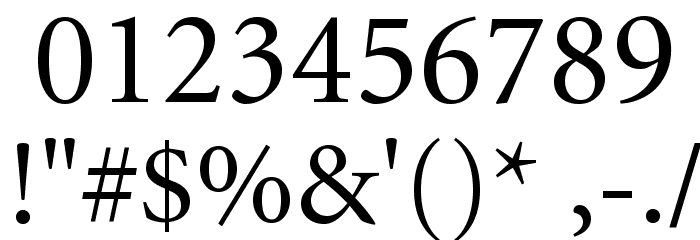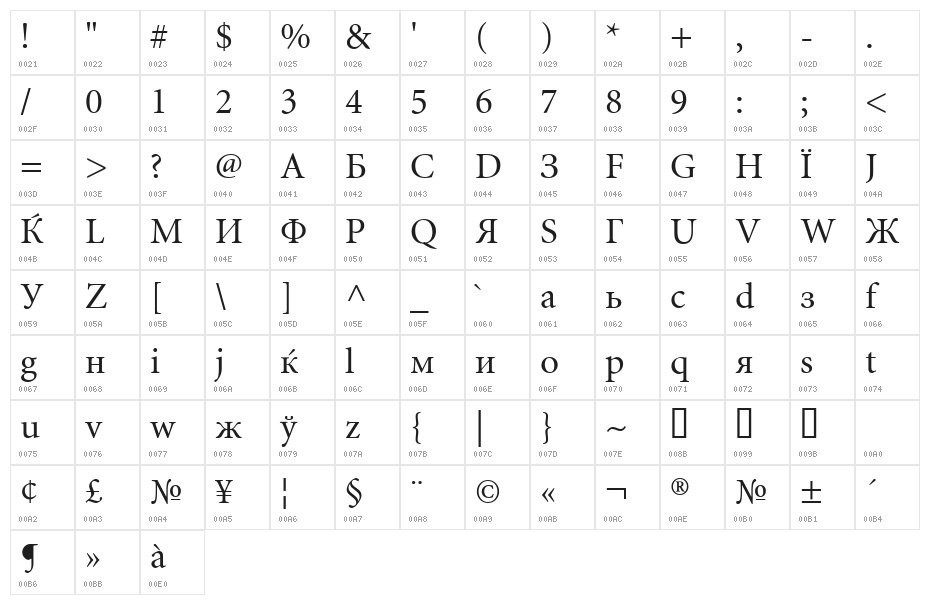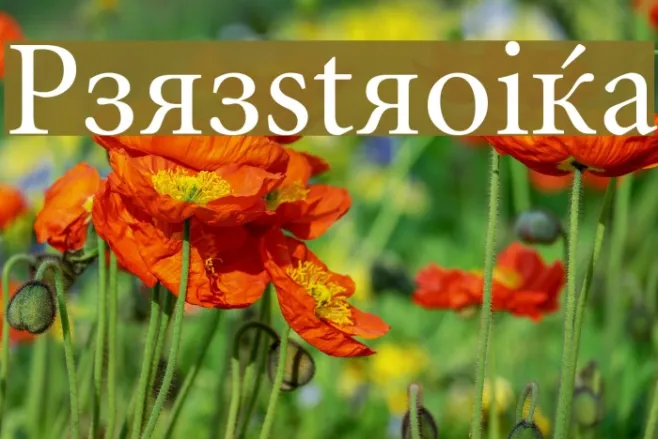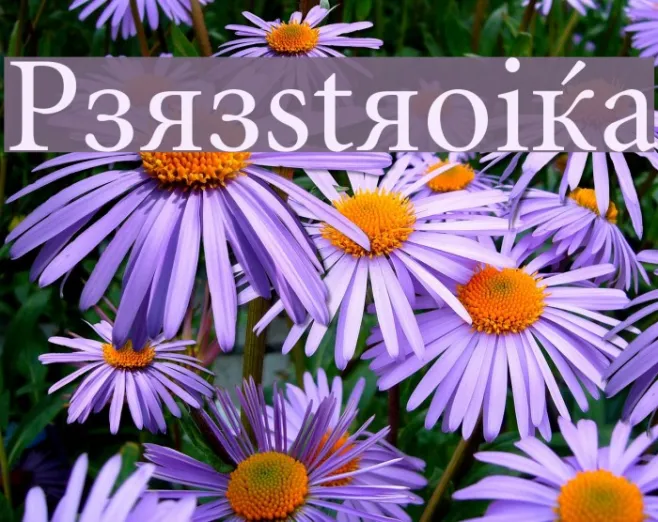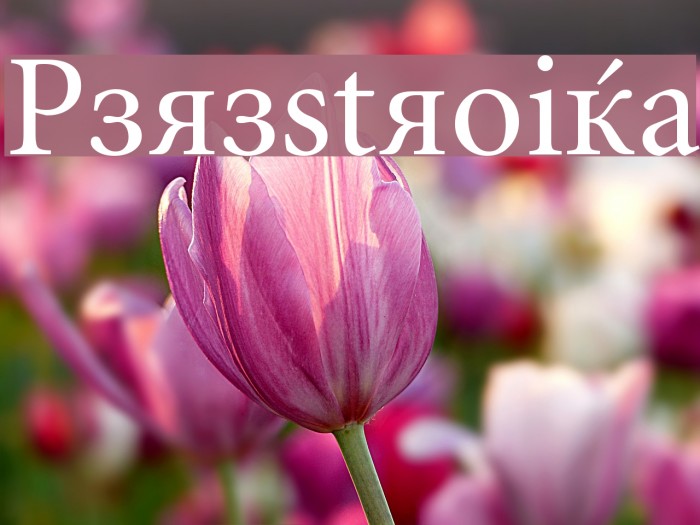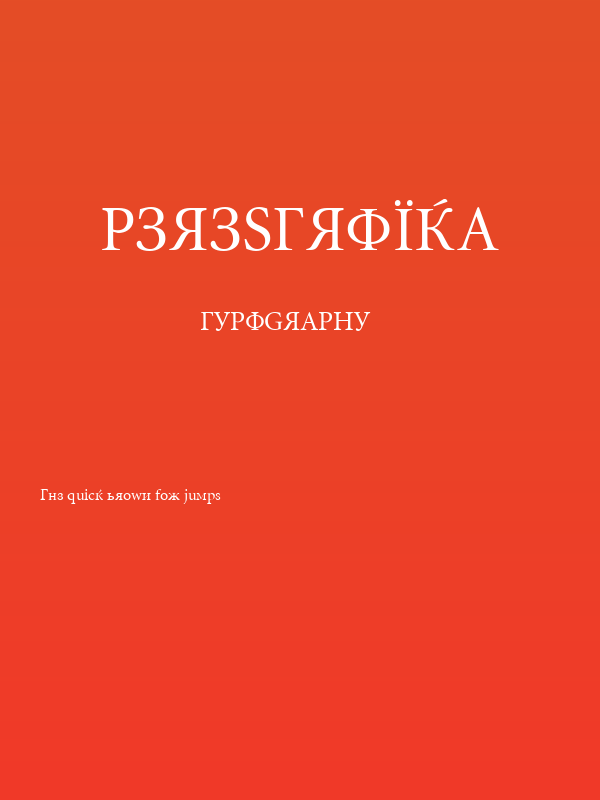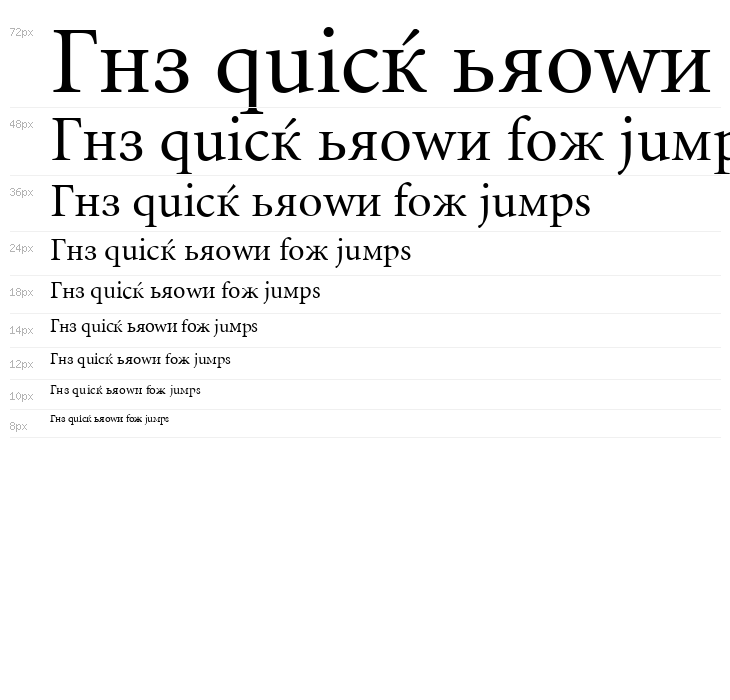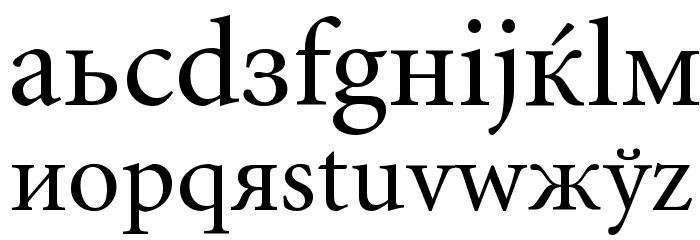
Perestroika Font
Perestroika Description
This font exhibits a classic serif style with a modern twist, featuring distinct serifs and a balanced proportion. The uppercase letters are bold and commanding, while the lowercase letters maintain a refined elegance. The numerals are clear and well-defined, making them suitable for various applications. Special characters are included, enhancing its versatility. The font's overall appearance is sophisticated, with a medium contrast in stroke thickness, providing a harmonious blend of traditional and contemporary elements.
Overall StyleClassic
Use CaseHeadlines, Body text, Logos
Proposed ProjectsIdeal for editorial design, book covers, formal invitations, and branding projects that require a touch of elegance.